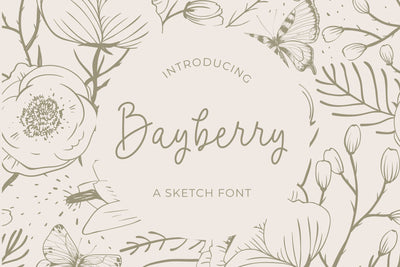
Bayberry - a Sketch Font
Bayberry is a simple and easy-to-read handwritten font. It’s perfect for greeting cards, magazines, headers, wedding invitations, beautiful stationary art, eye-catching social media posts, and more.